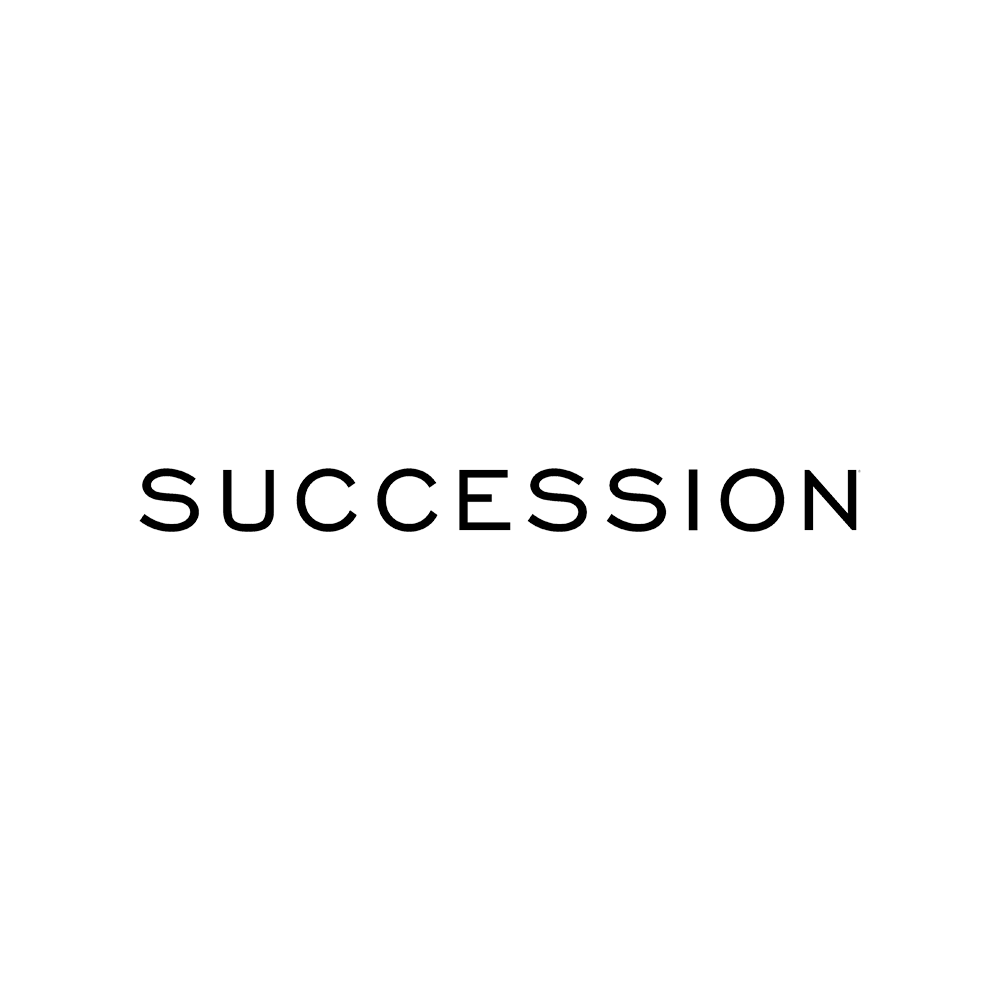
Succession [TV Show] Font
DramaSuccession is a critically acclaimed HBO drama series that follows the wealthy and powerful Roy family as they navigate power struggles and family dynamics within their media empire.
The series title on the poster is designed based on Engravers Gothic font from Bitstream, which is similar to Sackers Gothic from Monotype with more elongated letterforms.